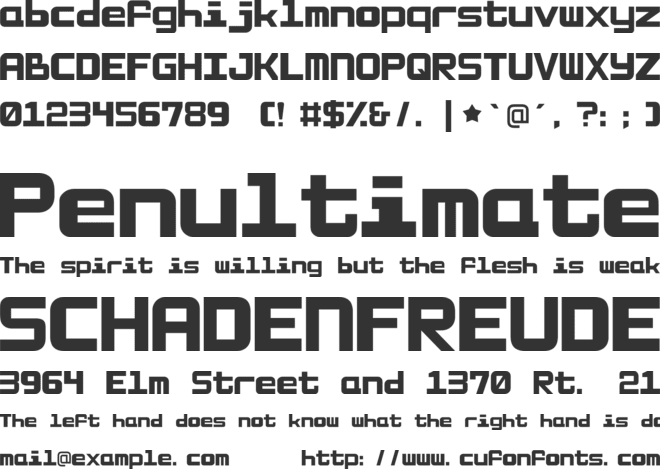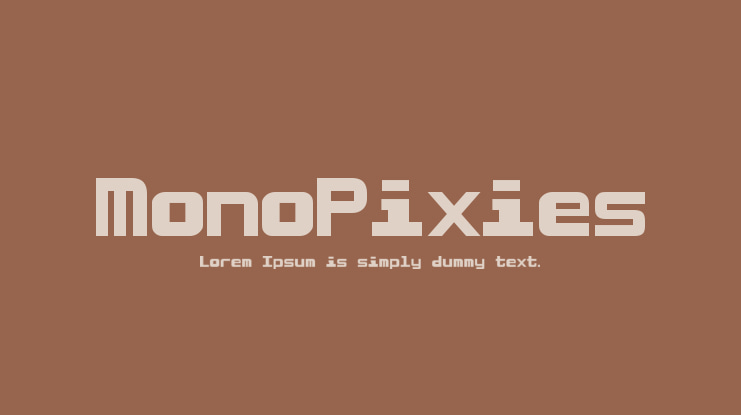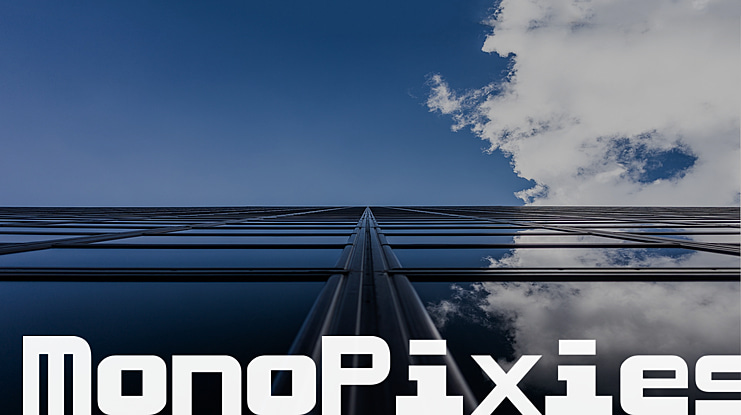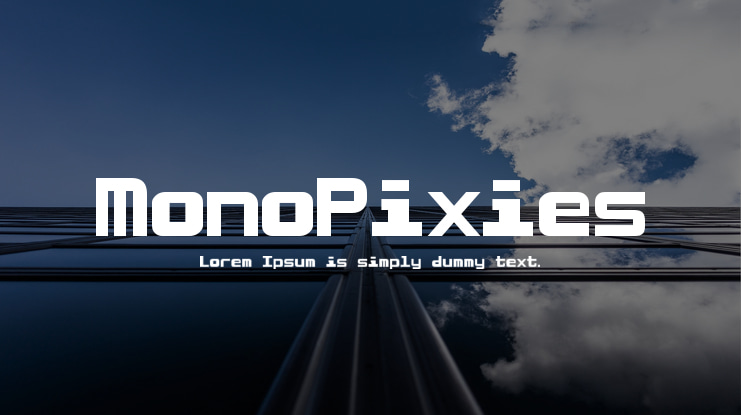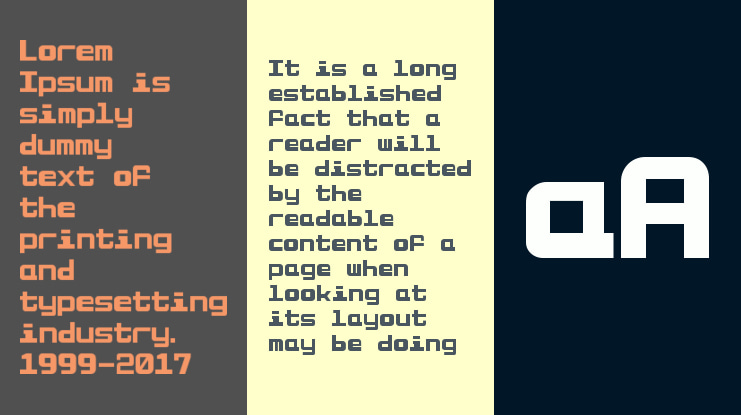
MonoPixies Font
MonoPixies is a new 80's-esque monospaced font.
MonoPixies 1.1 contains 6 pictograms encoded in Bitmap Unicode:
– in U+00A7, symbol for carriage return
– in U+00B5, a house
– in U+00BC - U+00BE, pie charts
- in U+2126, a menu button icon(NEW!)